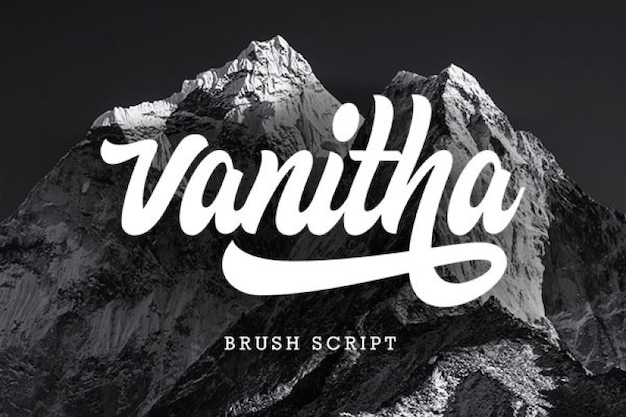
Vanitha Font
This glamorous Vanitha font can determine the way your audience feels about your project. This hand made typeface, inspired by old-school signboards, has meandering bold strokes and elegant ligatures. Thanks to its versatility, you can apply it to many formats like book covers, t-shirts, mugs, posters and flyers. It includes distinct uppercase and lowercase letters. Download it from Freepik now!